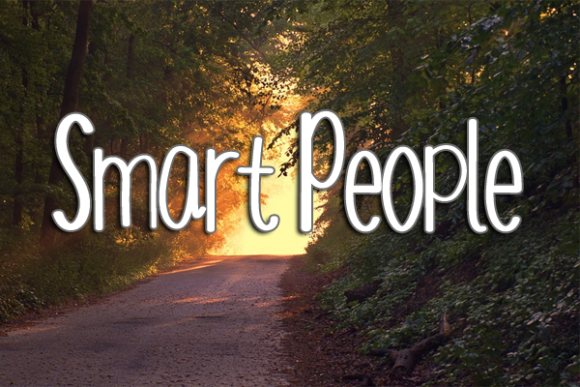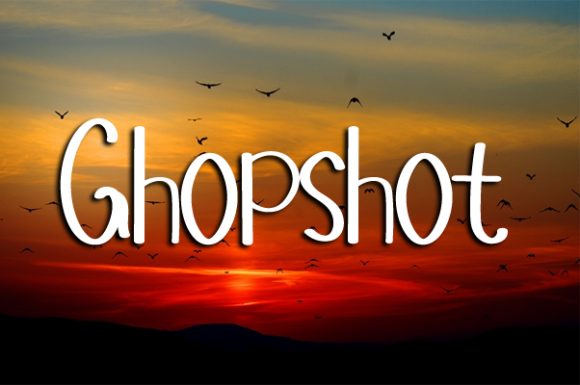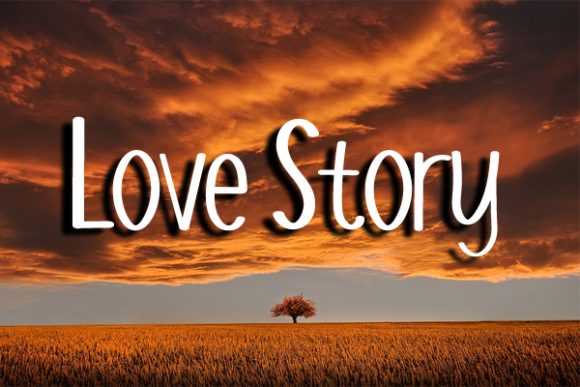
Magenta Font
About Magenta Font
Magenta is a clean and simple handwritten font. It has a modern yet whimsical style and it will undoubtedly immerse your designs into a magical world.